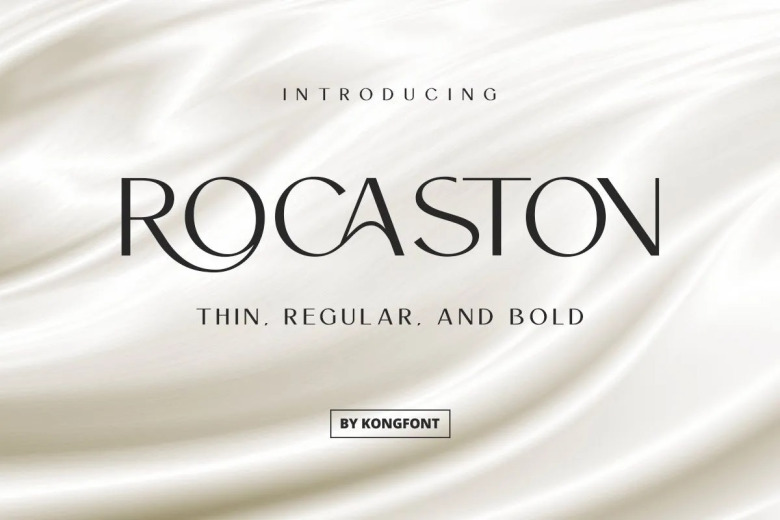
Rocaston Font
Rocastonis a cool sans-serif font. Our lowercase letters have under scores. This font good for all typograph logo, poster headline, magazine or your products names. If you want that finished look for your design and want to complete it asap use this font now!
Rocaston Sans Serif Font